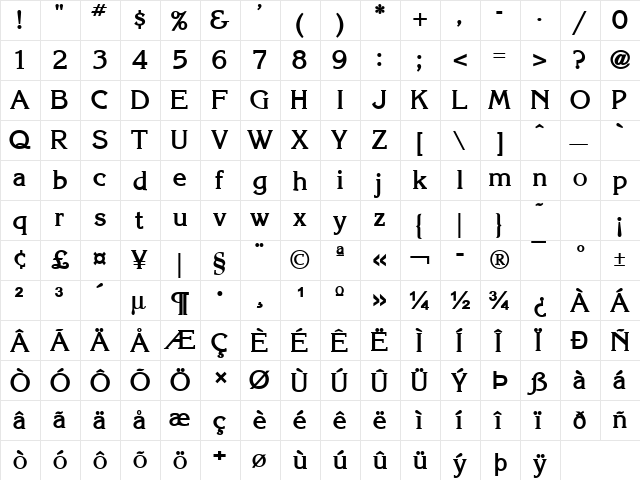
Keira Bold
Design Context for Keira Typeface
Keira is a composed and adaptable typeface that performs quietly and consistently across a wide range of design contexts. Its bold stroke weight gives it real presence on the page.